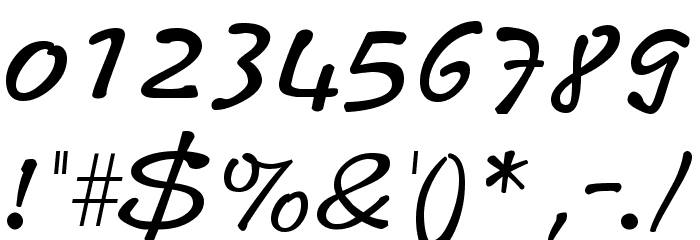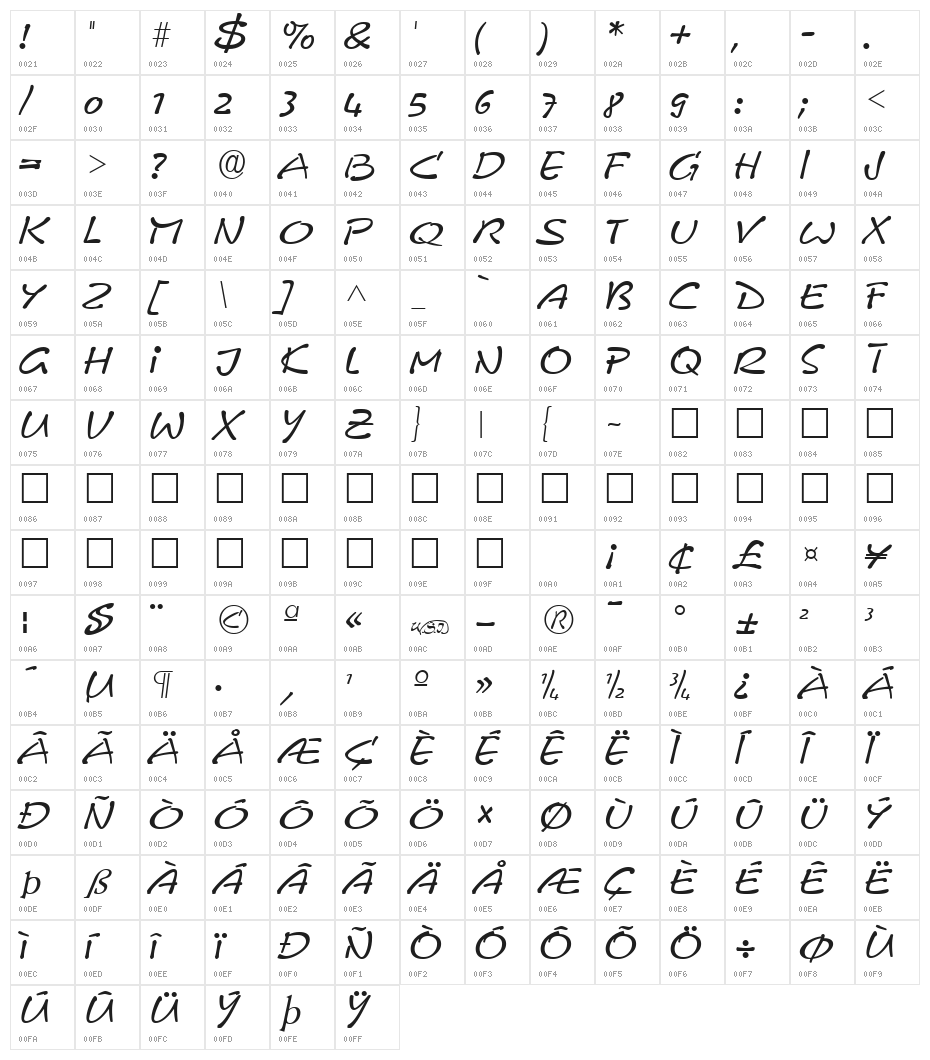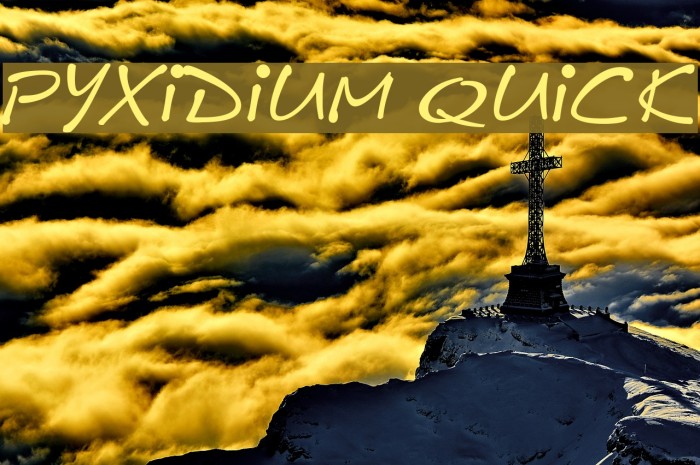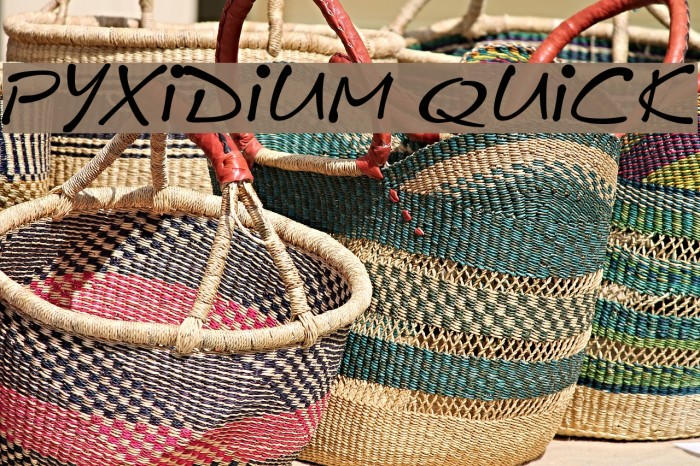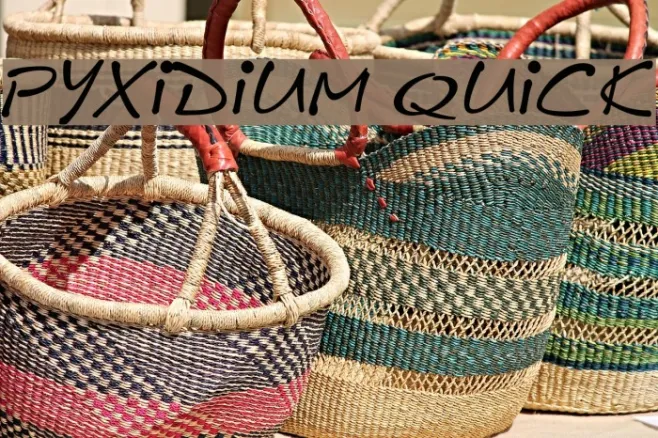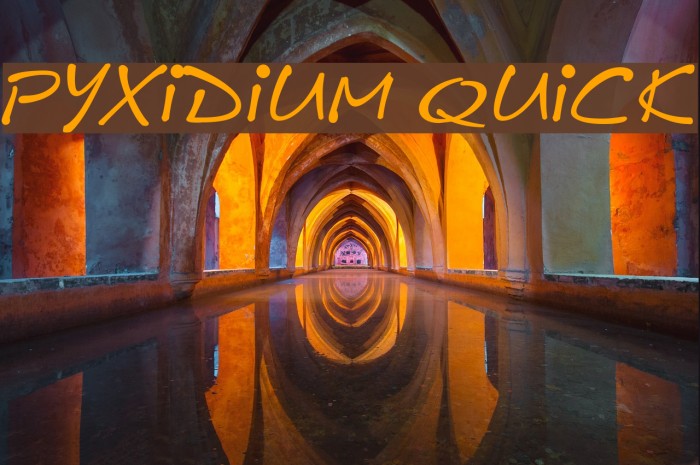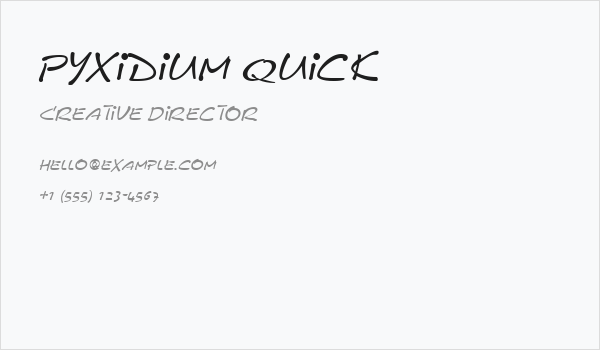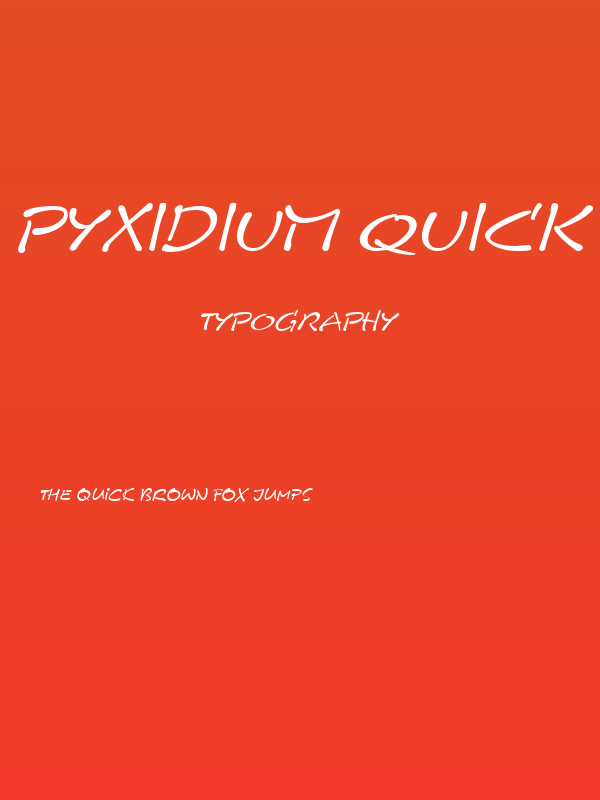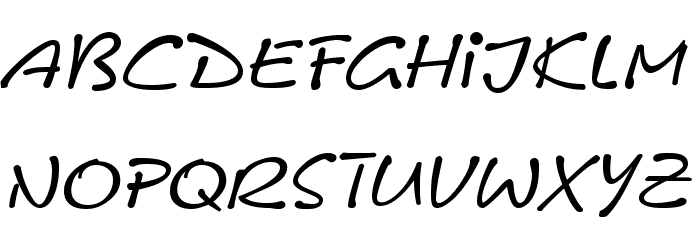
Pyxidium Quick Font
Pyxidium Quick Description
This font features a dynamic and fluid script style, characterized by its smooth, flowing lines and slightly slanted characters. The uppercase letters exhibit a playful yet elegant form, with distinctive loops and curves that give the font a lively appearance. The lowercase letters maintain a consistent style, complementing the uppercase with their rounded forms and subtle connections. Numbers are bold and clear, ensuring readability while maintaining the font's overall aesthetic. Special characters are thoughtfully designed, integrating seamlessly with the rest of the character set. This font's energetic and informal style makes it suitable for creative and expressive projects.